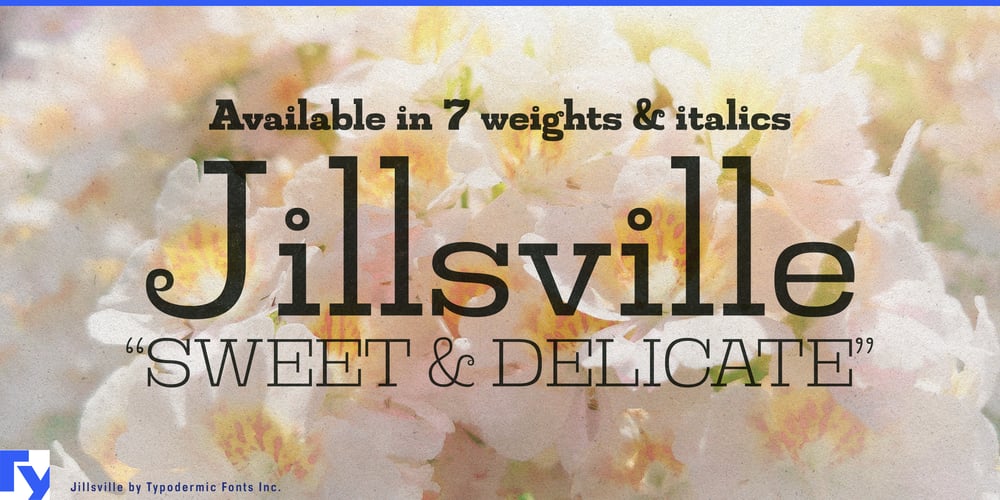
Jillsville Font Family was designed by Ray Larabie and published by Typodermic. Jillsville contains 14 styles and family package options. Welcome to Jillsville, a slab-serif typeface that marries contemporary design with a touch of whimsy. This charming font family breathes new life into the classic slab-serif style, offering designers a fresh tool for creating engaging and sympathetic visual communication.Jillsville’s distinctive personality shines through in its carefully crafted letterforms. The typeface’s unusual design features lovely curls that add a playful twist to the traditional slab-serif structure. This unique blend of boldness and delicacy allows Jillsville to convey messages with both authority and warmth—a rare combination that sets it apart in the typographic landscape. With seven meticulously crafted weights and accompanying italics, Jillsville offers remarkable versatility. From light and airy headlines that whisper elegance to bold statements that command attention, this typeface adapts effortlessly to a wide range of design challenges. The family’s extensive character set, including mathematical symbols, fractions, numeric ordinals, and monetary glyphs, ensures that Jillsville is as practical as it is beautiful.Jillsville’s linguistic prowess is truly impressive. It speaks fluently across borders, supporting an extensive array of writing systems including Latin-based European languages, Vietnamese, Greek, and most Cyrillic-based scripts. This remarkable language coverage transforms Jillsville into a global communicator, equally at home in the streets of Hanoi, the cafés of Athens, or the bustling markets of Moscow. Whether you’re crafting a heartfelt brand identity, designing an inviting editorial spread, or creating an engaging digital interface, Jillsville offers the perfect balance of personality and professionalism. Its slab-serifs provide a solid foundation, while its curls and unique details add a layer of approachability that invites readers to linger.Embrace Jillsville, and discover how its distinctive charm can elevate your design work. It’s a versatile design partner that brings a touch of warmth and character to every project it graces. From the local boutique seeking to make a lasting impression to the global brand aiming to connect with diverse audiences, Jillsville stands ready to articulate your message with style and empathy.